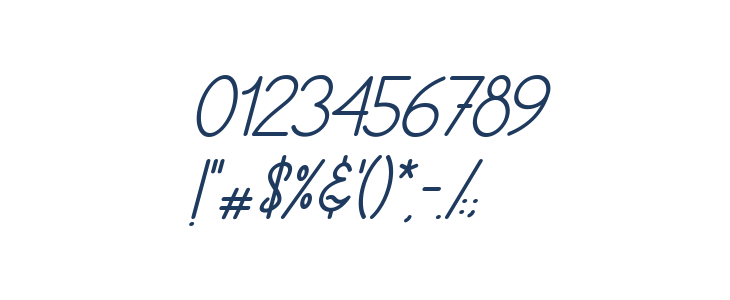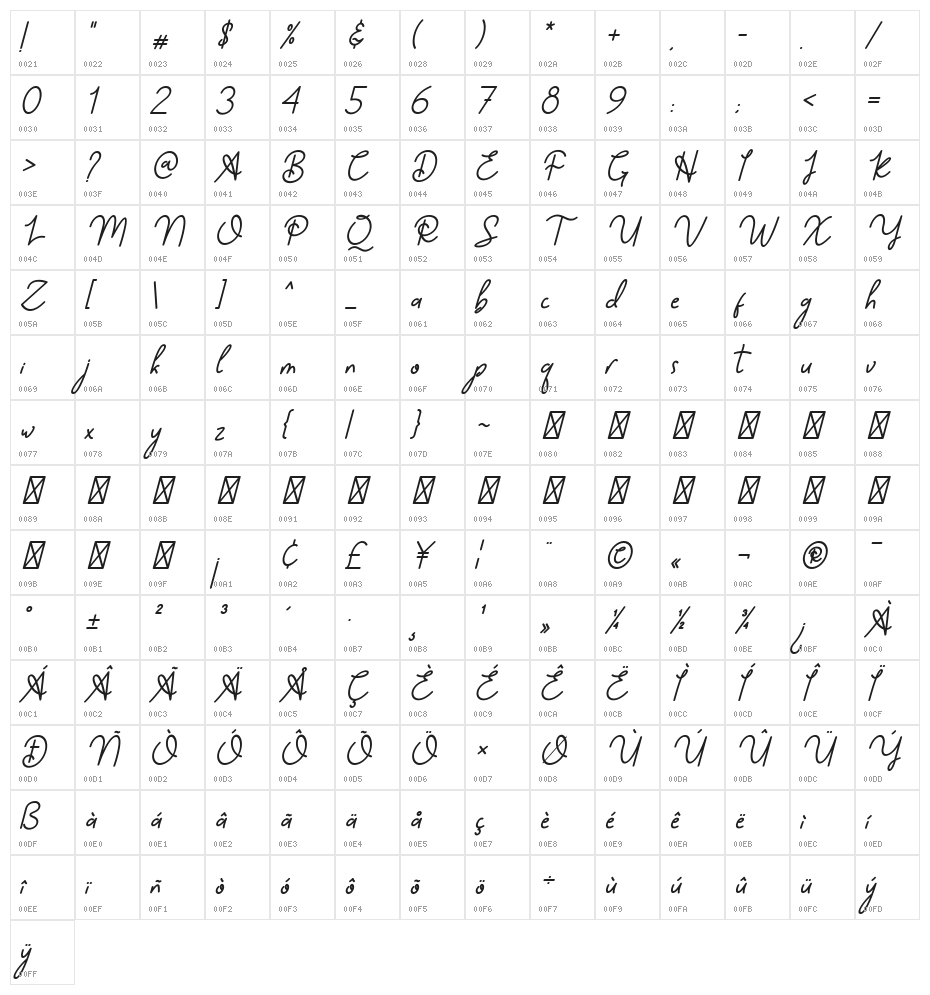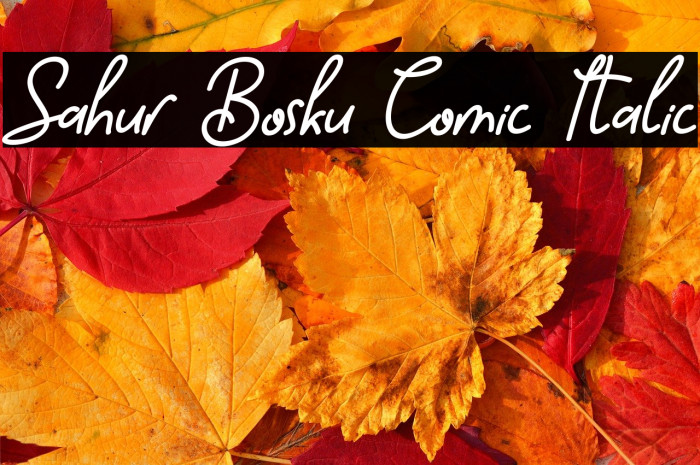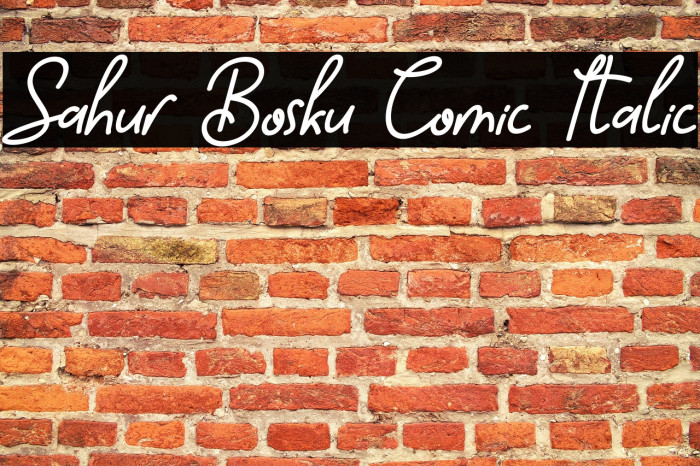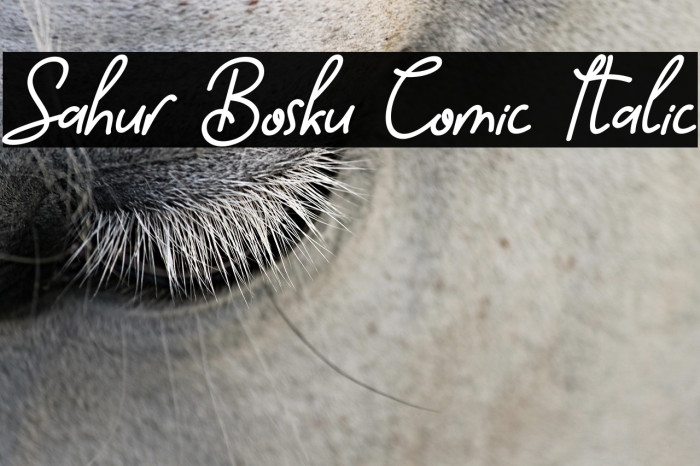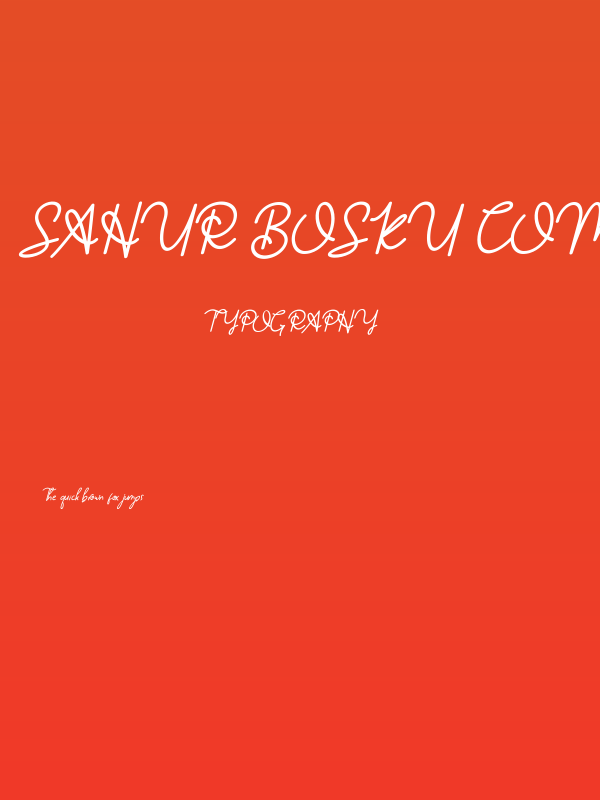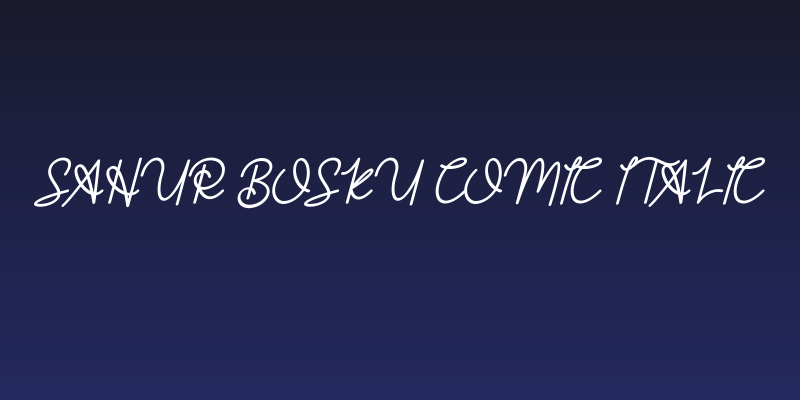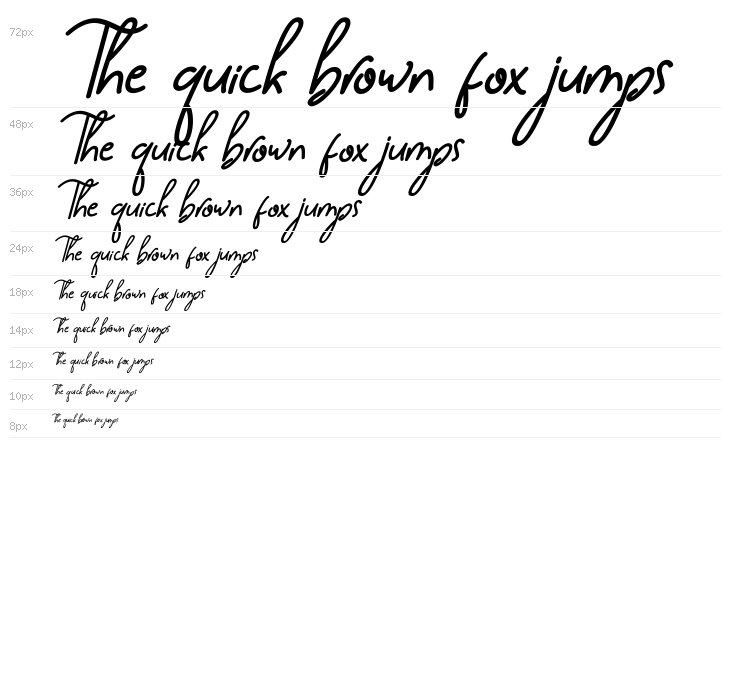
Sahur Bosku Comic Italic Font
Sahur Bosku Comic Italic Description
This font features a playful and dynamic script style, characterized by its fluid, handwritten appearance. The letters are connected, creating a sense of continuity and movement. The uppercase letters are bold and expressive, while the lowercase letters maintain a consistent flow. The numerals are clear and legible, matching the overall style of the alphabet. Special characters are included, maintaining the same lively and informal aesthetic. The font's italic nature enhances its casual and friendly vibe, making it suitable for projects that require a personal touch.
| Proposed Projects | Ideal for comic books, greeting cards, playful branding, and informal invitations. |